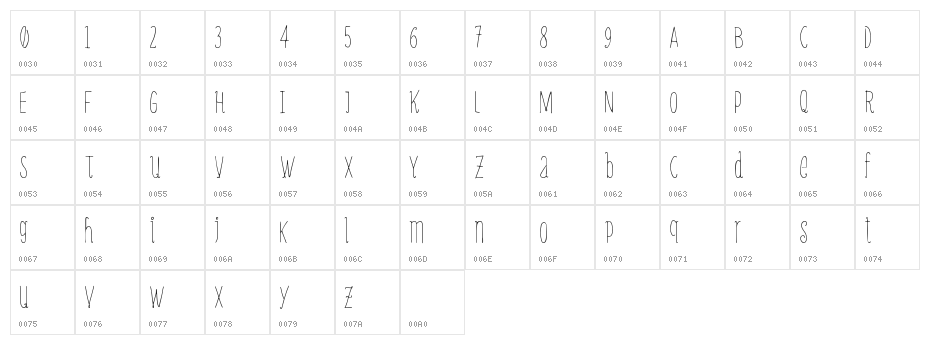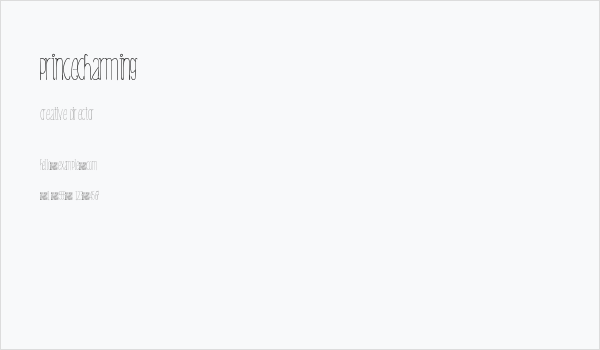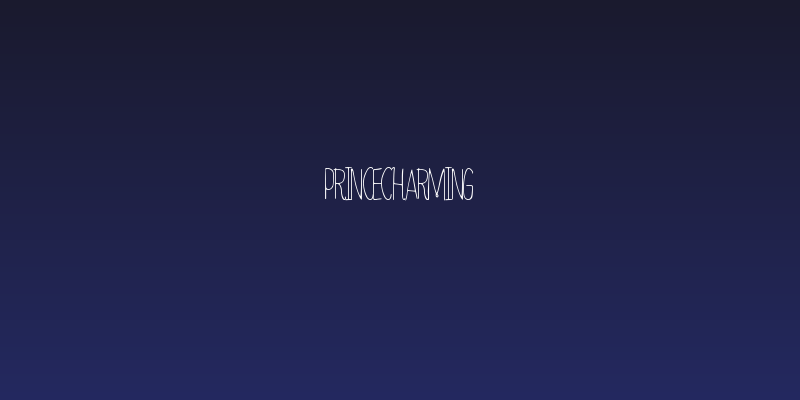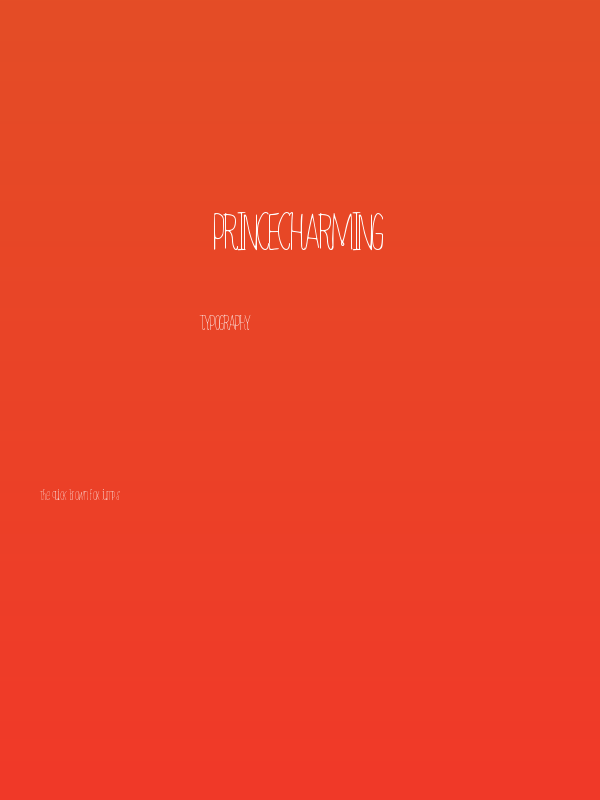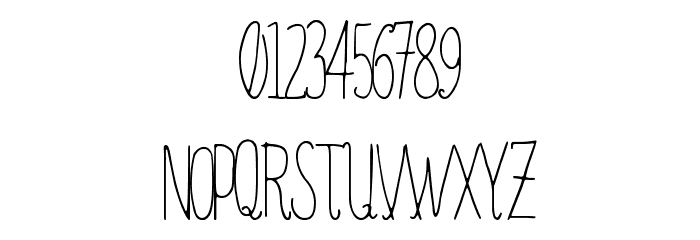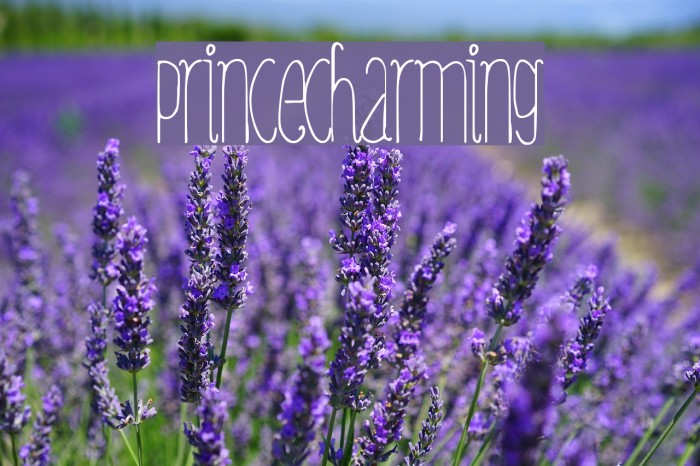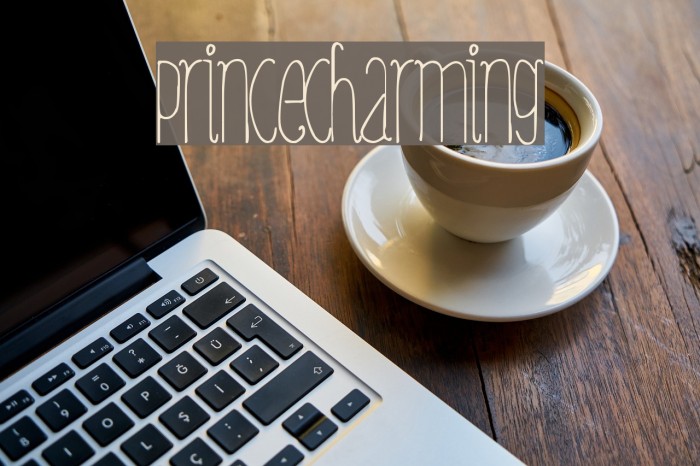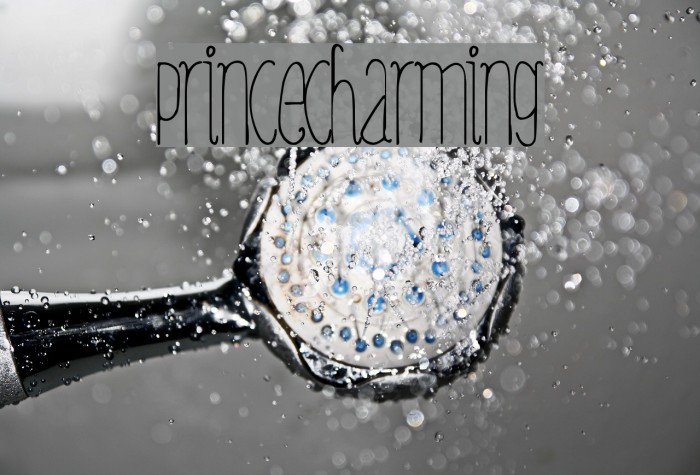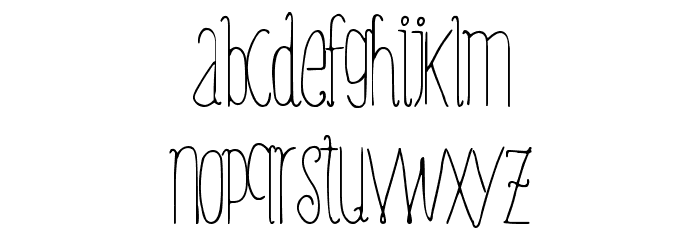
PrinceCharming Font
PrinceCharming Description
This font features a whimsical and elegant design with tall, narrow characters that have a hand-drawn appearance. The strokes are thin and consistent, giving it a delicate and airy feel. Each letter is uniquely crafted with slight curves and loops, adding a playful touch. The uppercase and lowercase letters maintain a cohesive style, while the numerals and special characters complement the overall aesthetic. The font's distinctive style makes it suitable for creative and artistic projects, where a touch of elegance and personality is desired.
| Proposed Projects | Ideal for wedding invitations, greeting cards, personal branding, and artistic posters. |